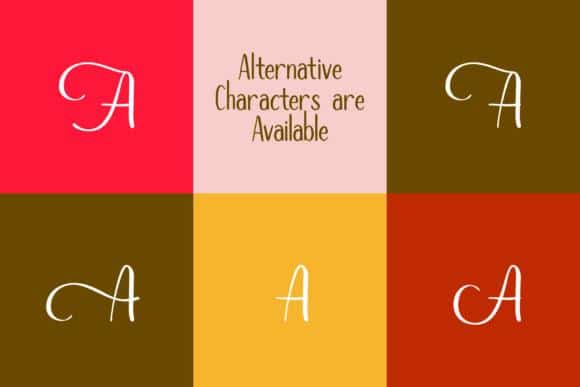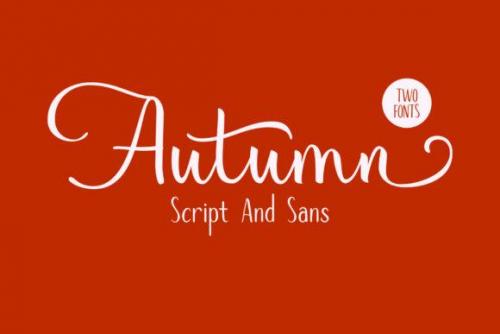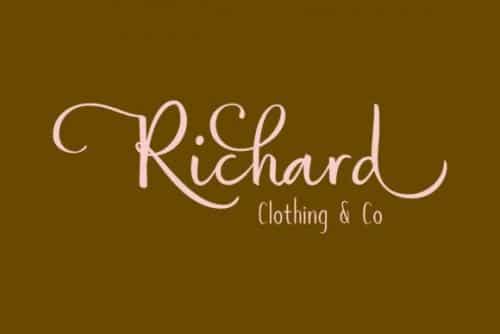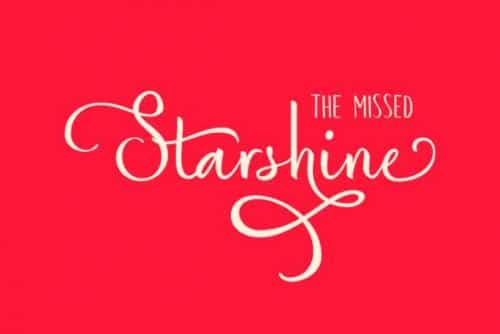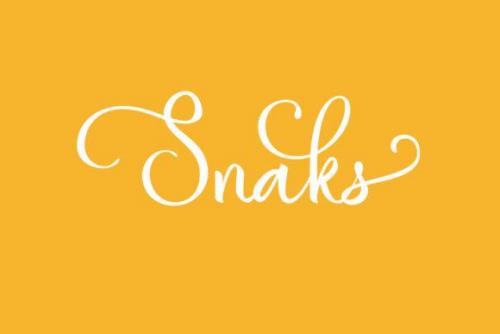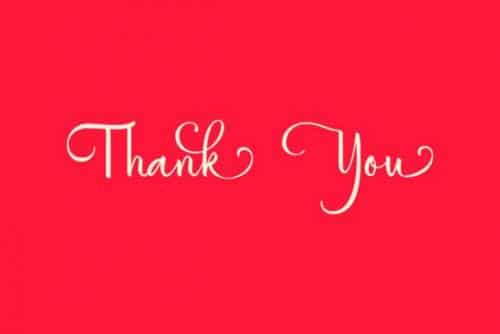
Autumn Mood simplifies elegance into one truly outstanding handwritten font. It will elevate a wide range of design projects to the highest level, be it branding, wedding designs, invitations, logos, and much more!
- Designer: andikafez